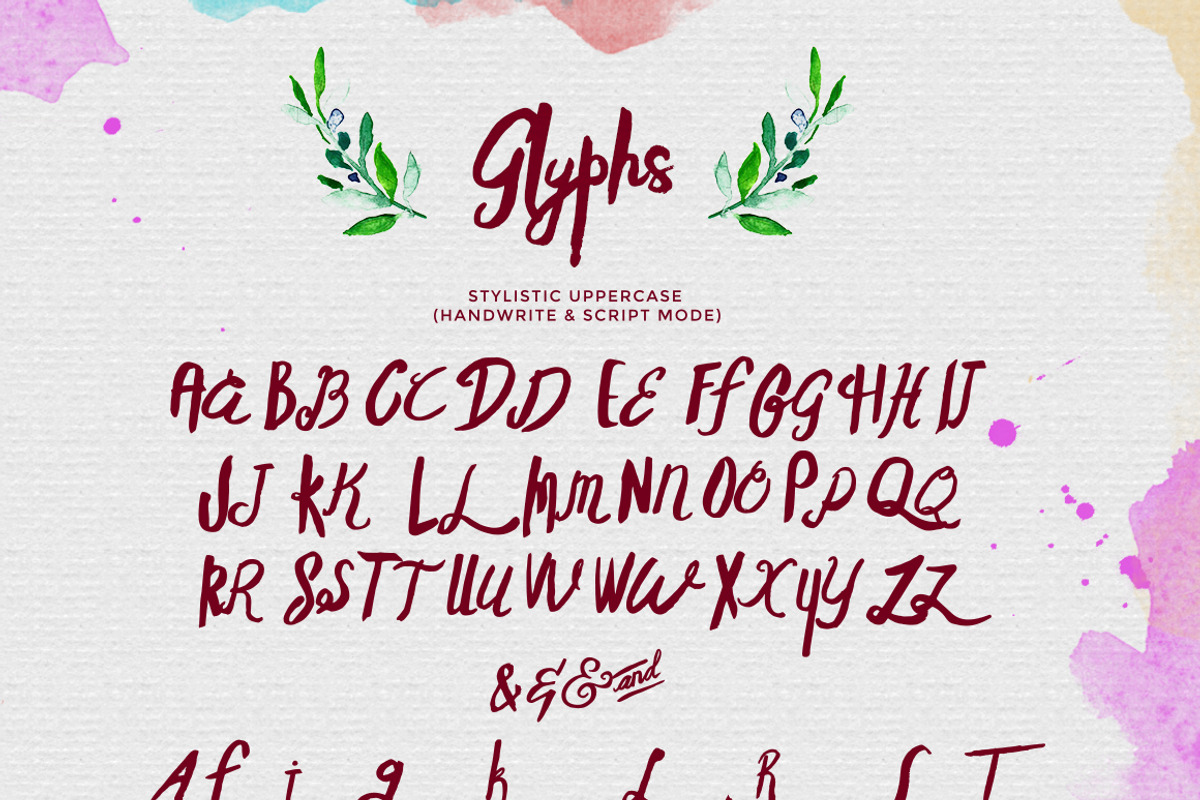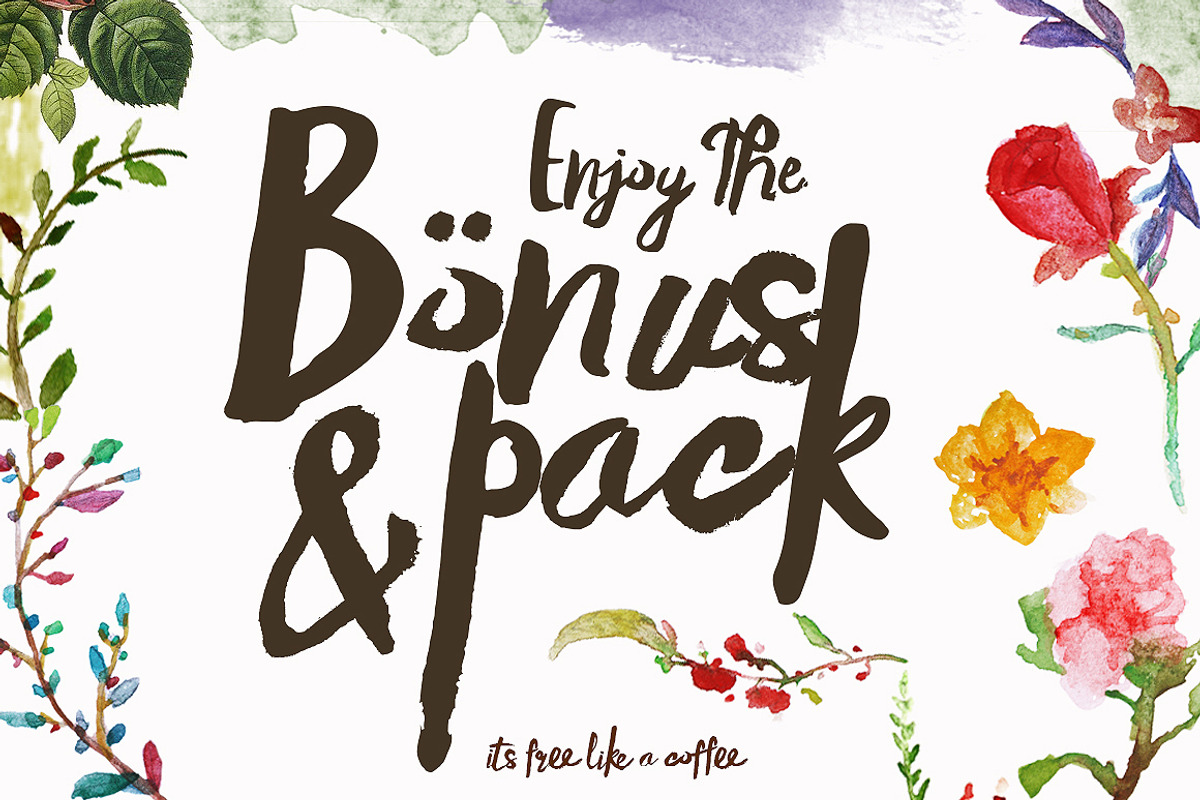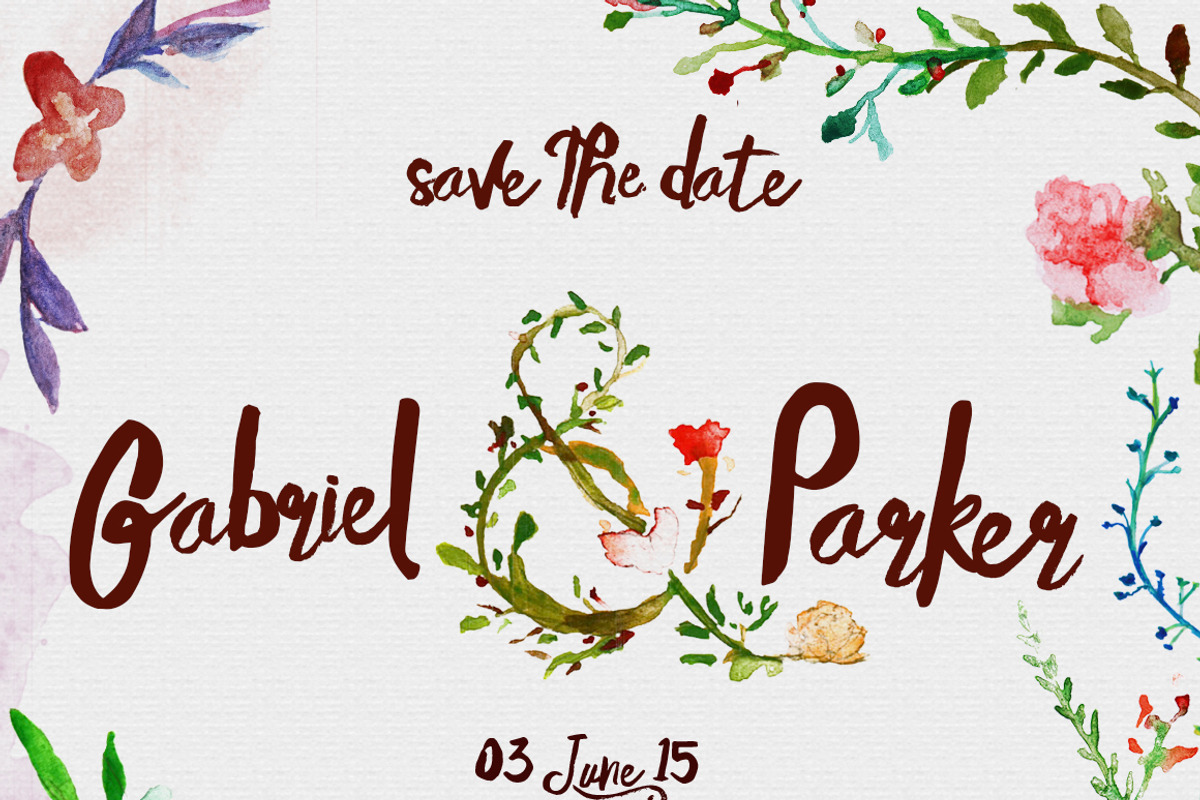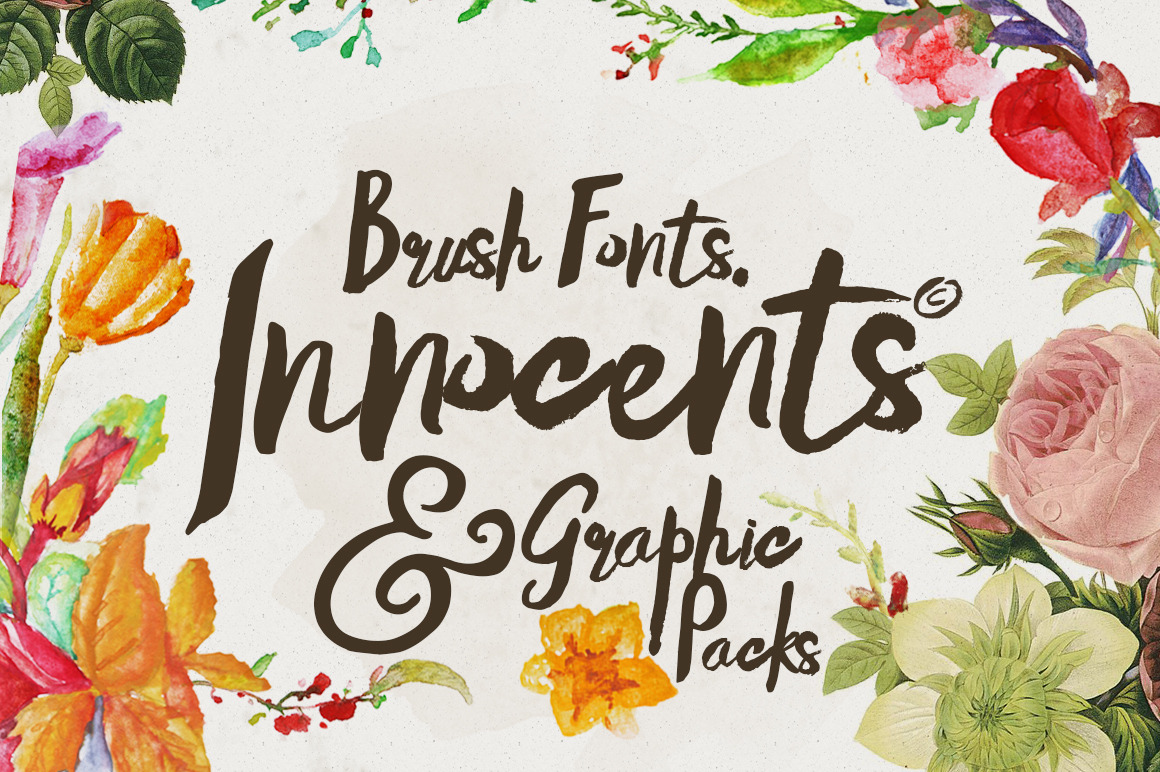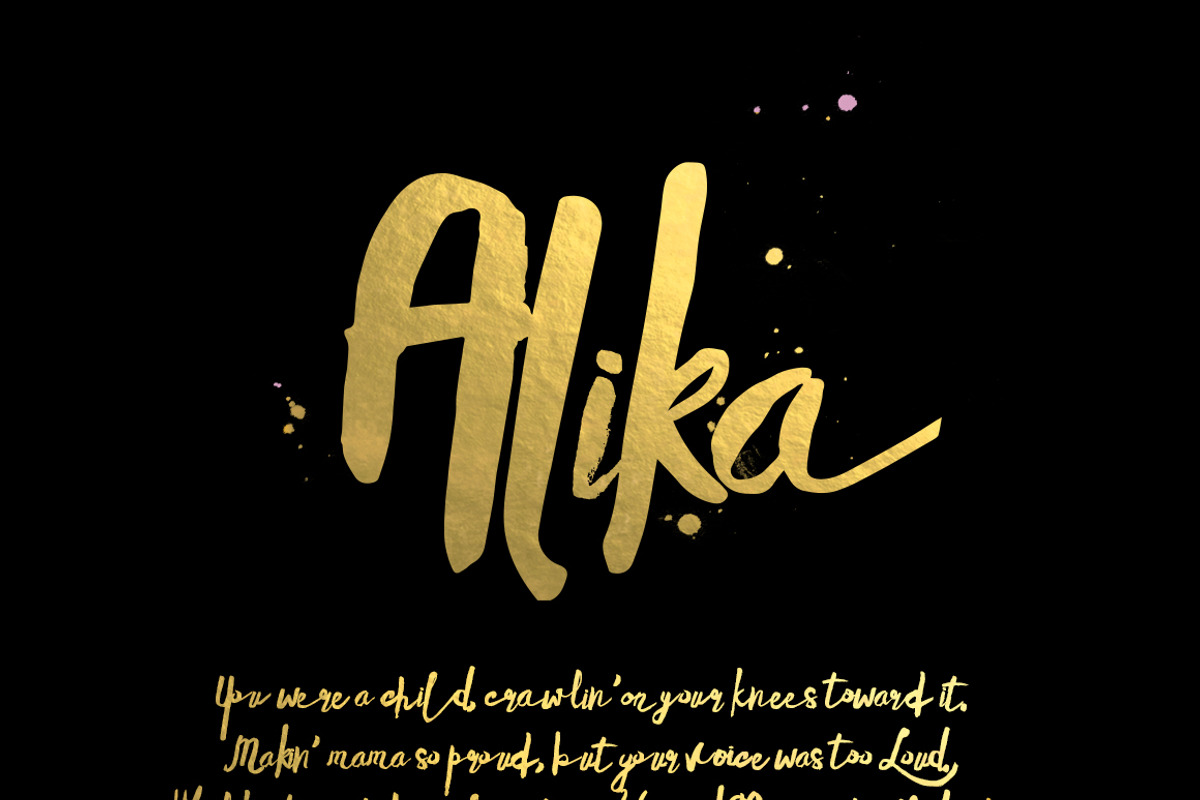
Innocents fonts & Graphic packs
innocents typeface was inspired when i drawing with my kids, with based from tradisional brush and watercolor can make the natural typographic. Over 250 glyphs can make you something different like save the date, modern show or traditional event, film title, birthday party, gig or anything you want to, just combine between botanical flower packs, and write the text choose stylistic glyphs like the presentation.
with complete features:
-Uppercase (2 different mode Script & sans serif handrawn) -Lowercase ( 2 different mode normal & subtle swash between glyphs) -Lumerals & Punctuation (Open type standard) -Ligatures (see the preview for the ligature texts and try in the box text area) -Stylishtic style -Accents (multilingual characters) -Bonus botanical watercolor (transparant watercolor png files) -Help files